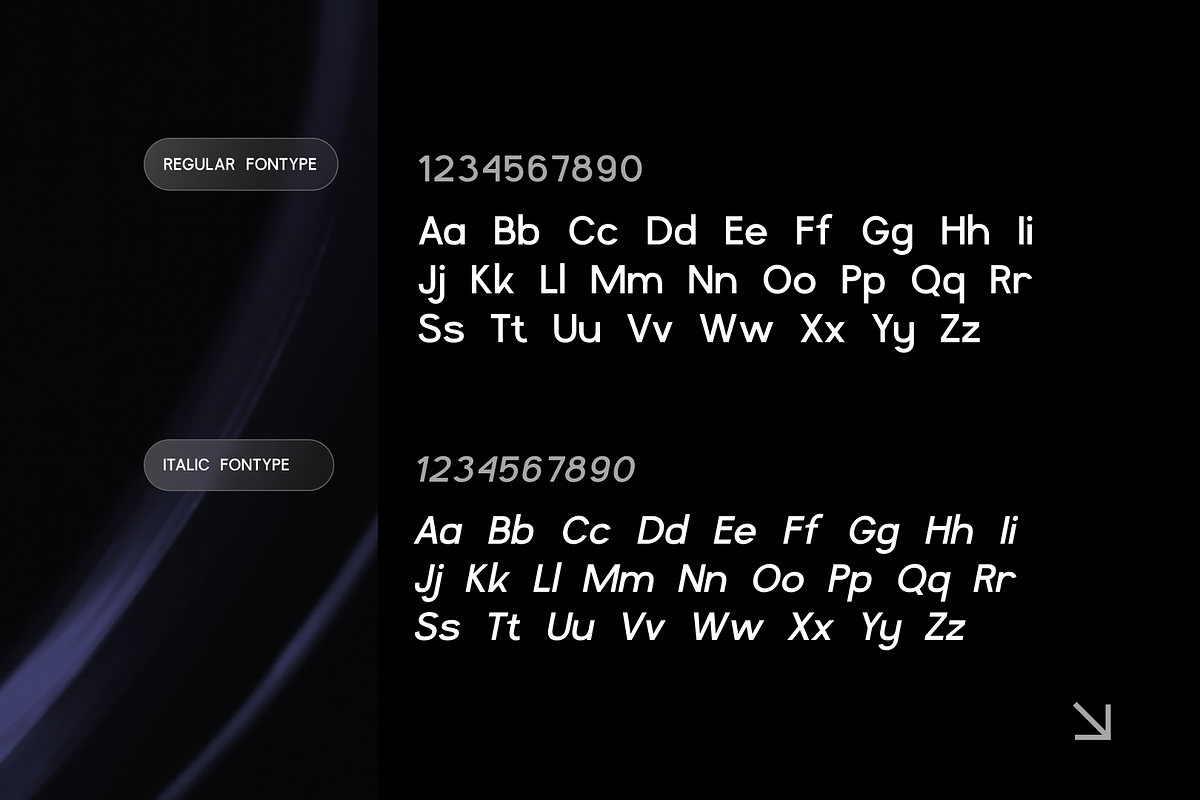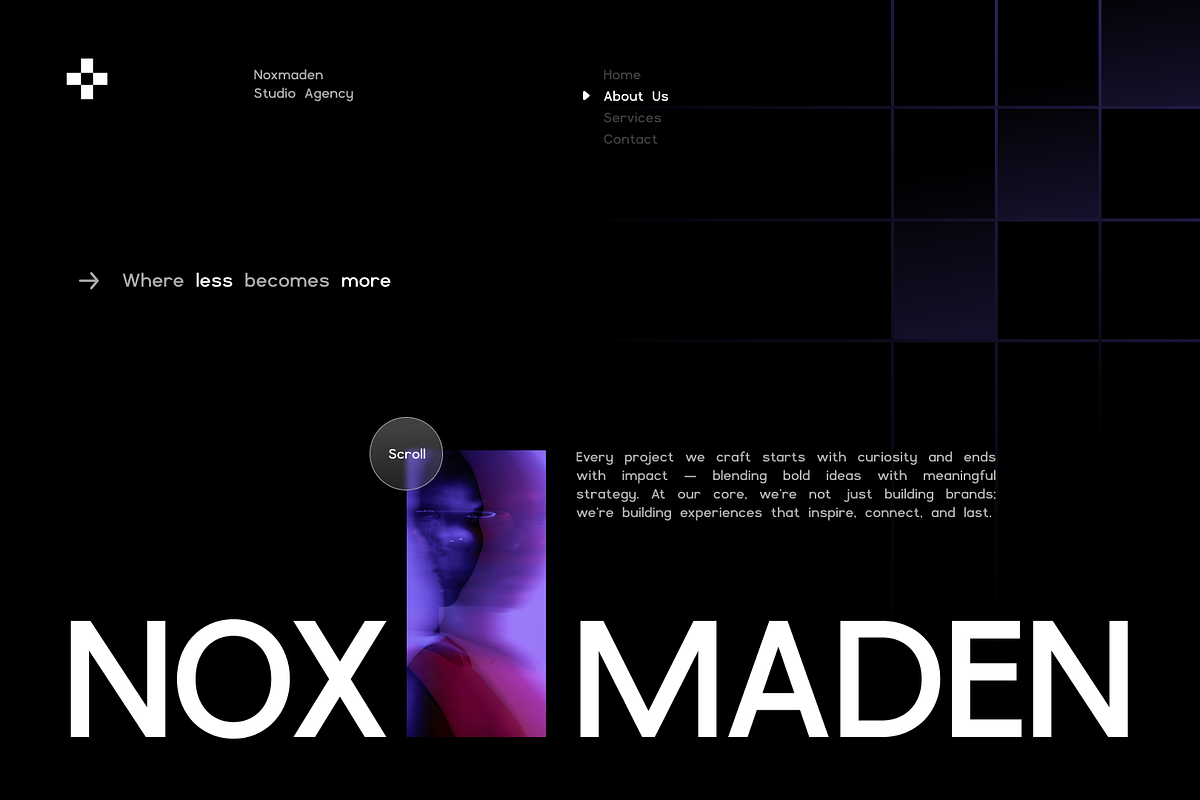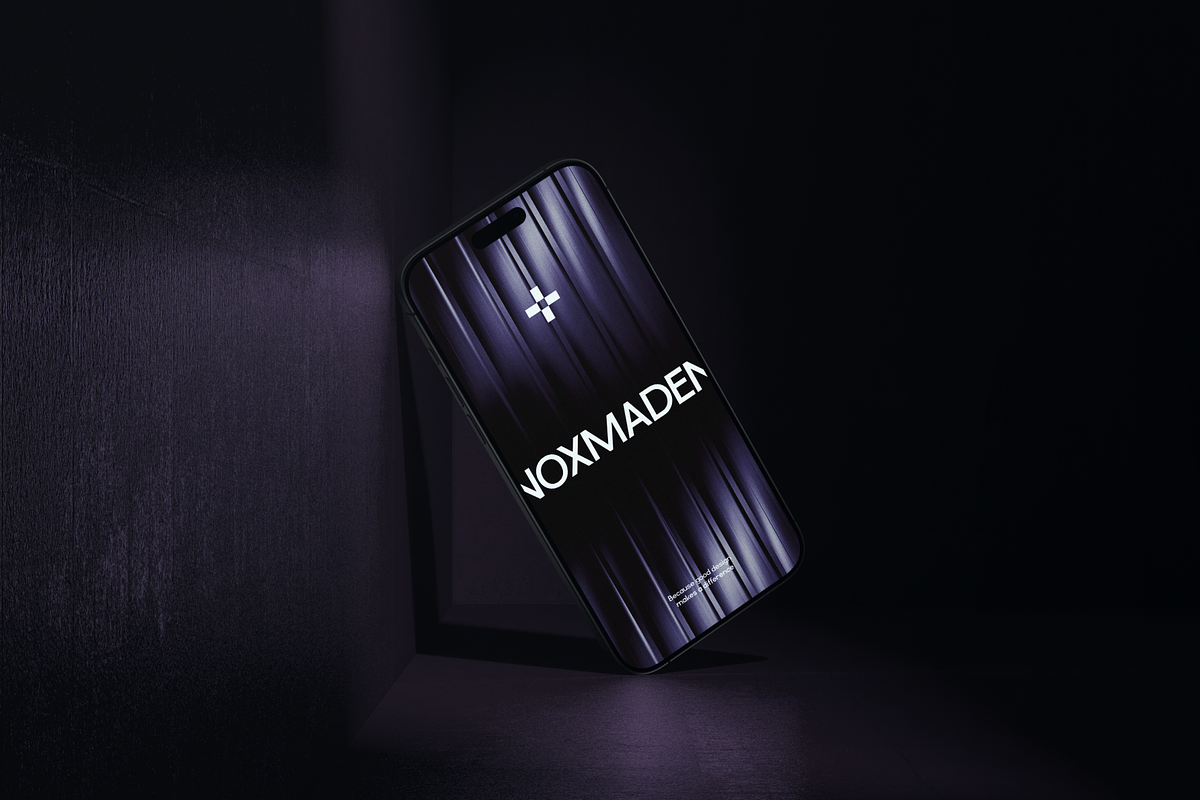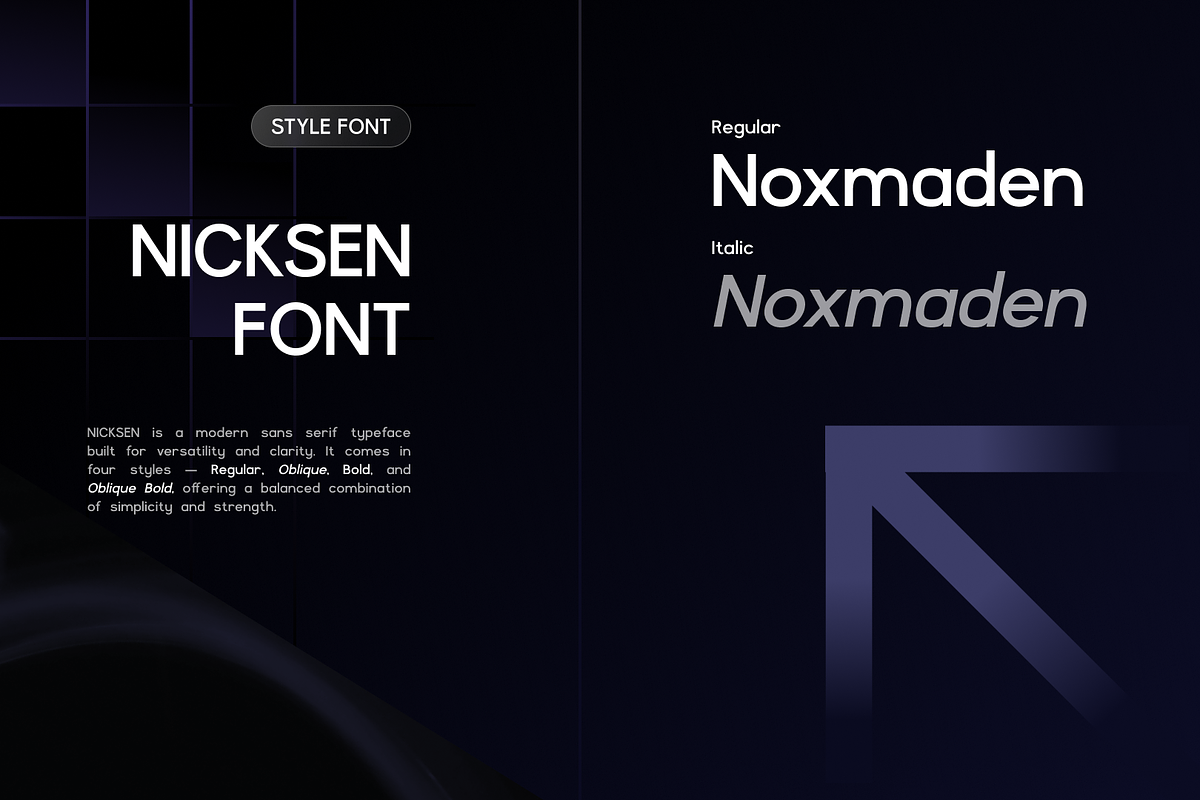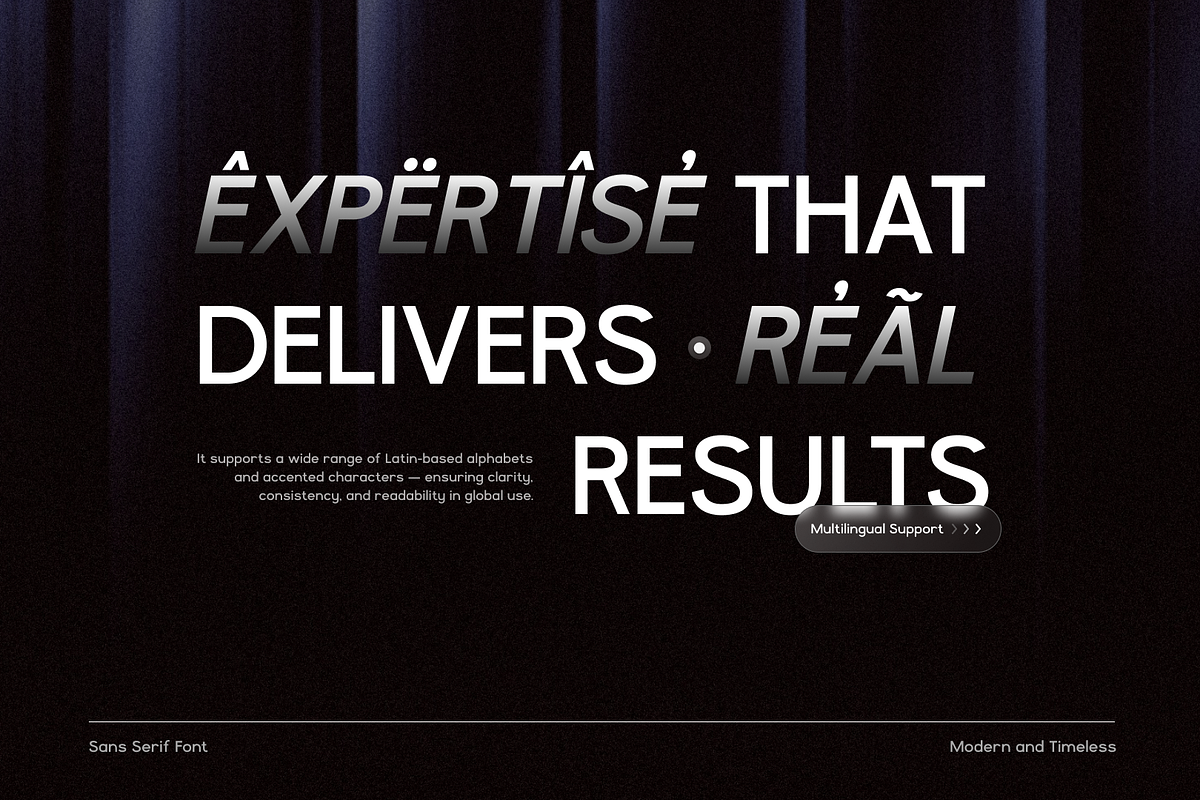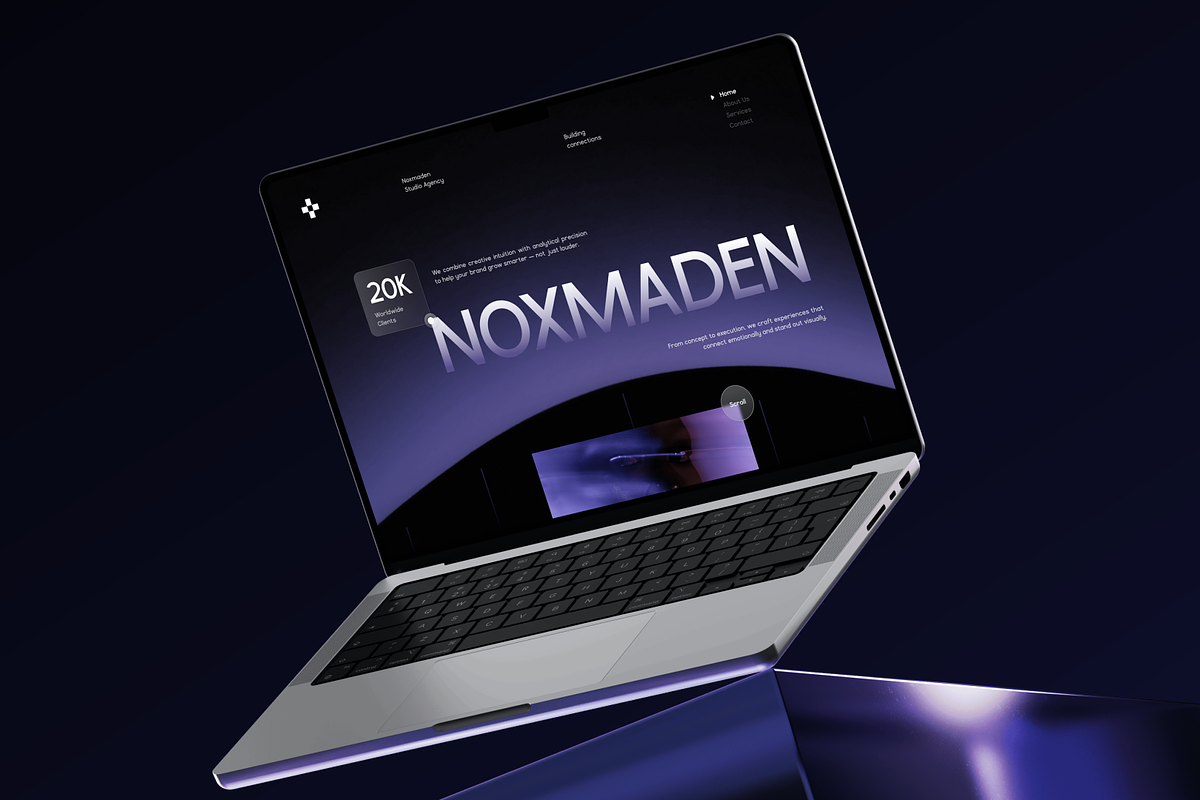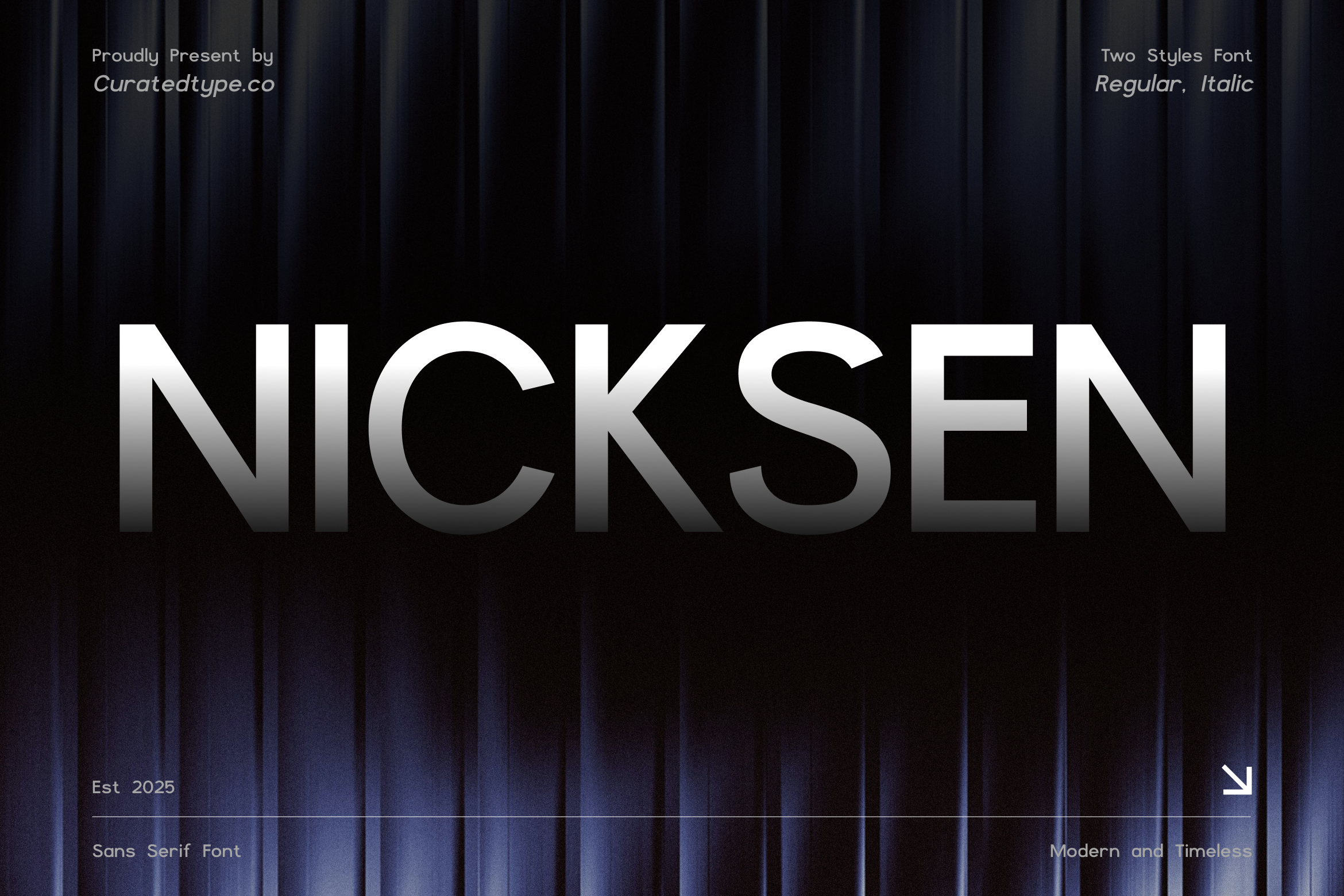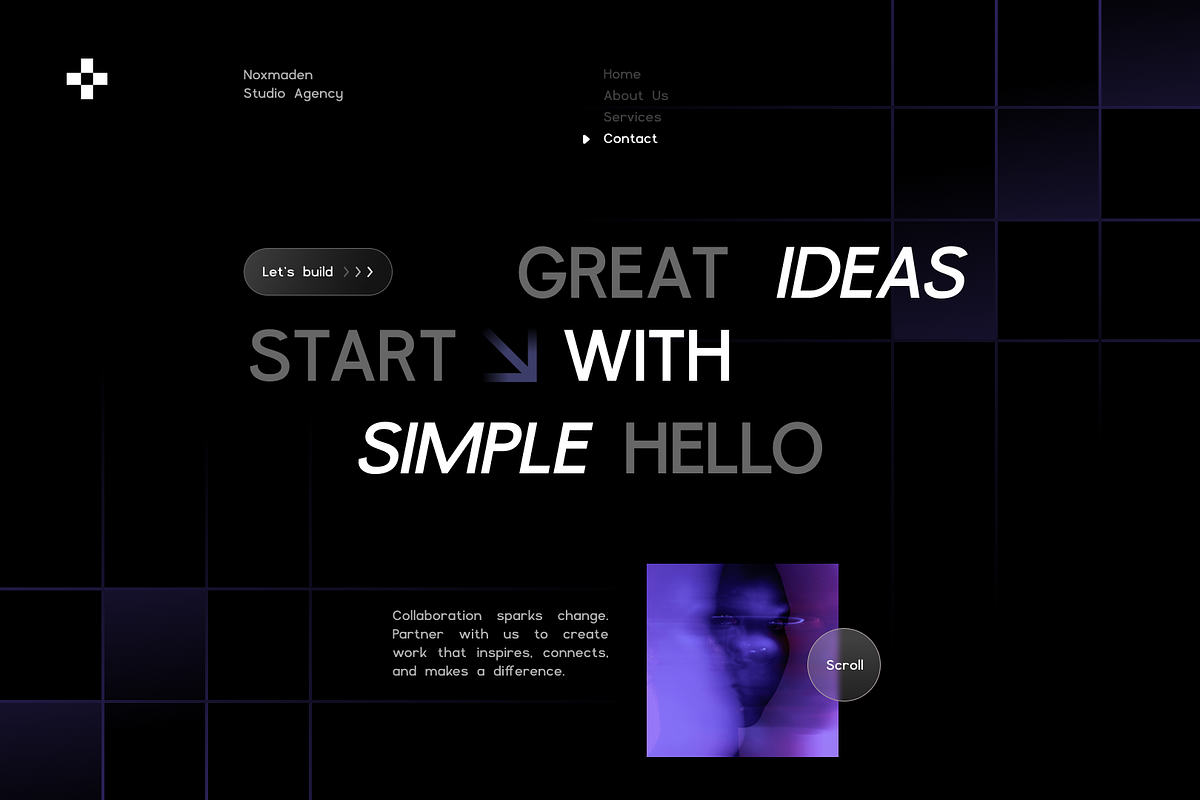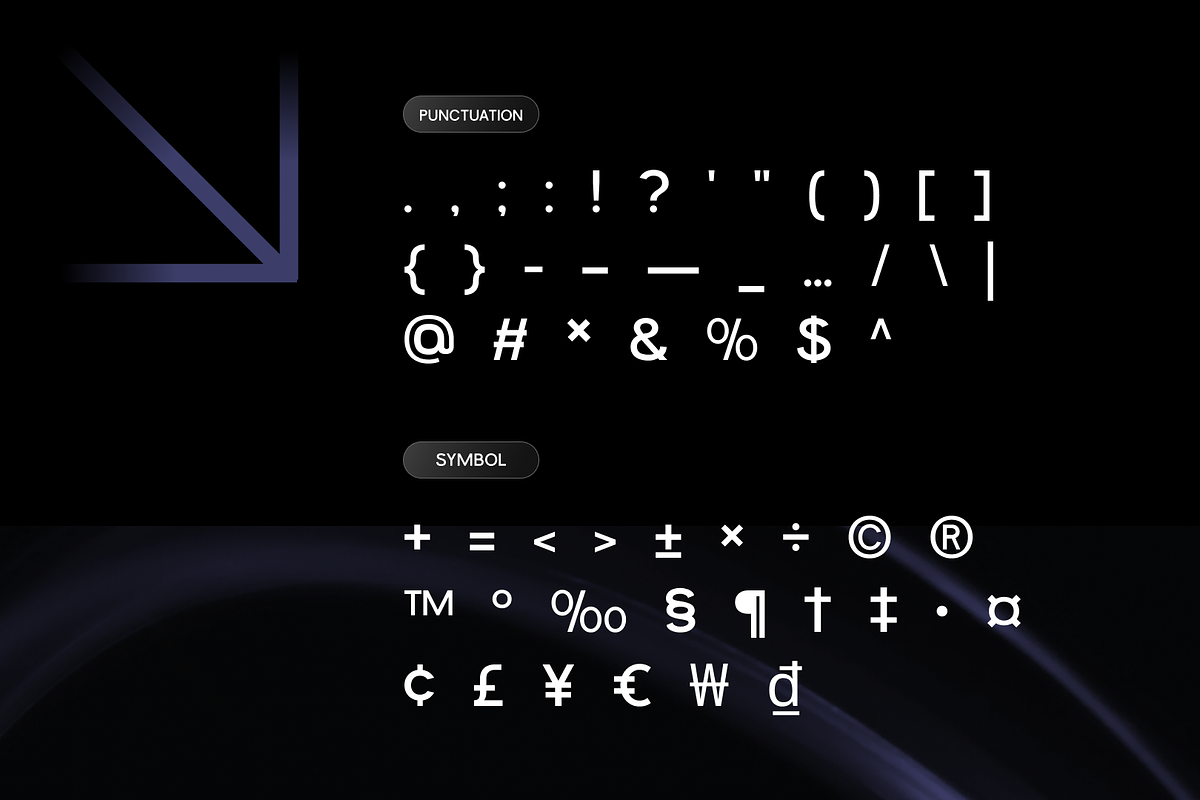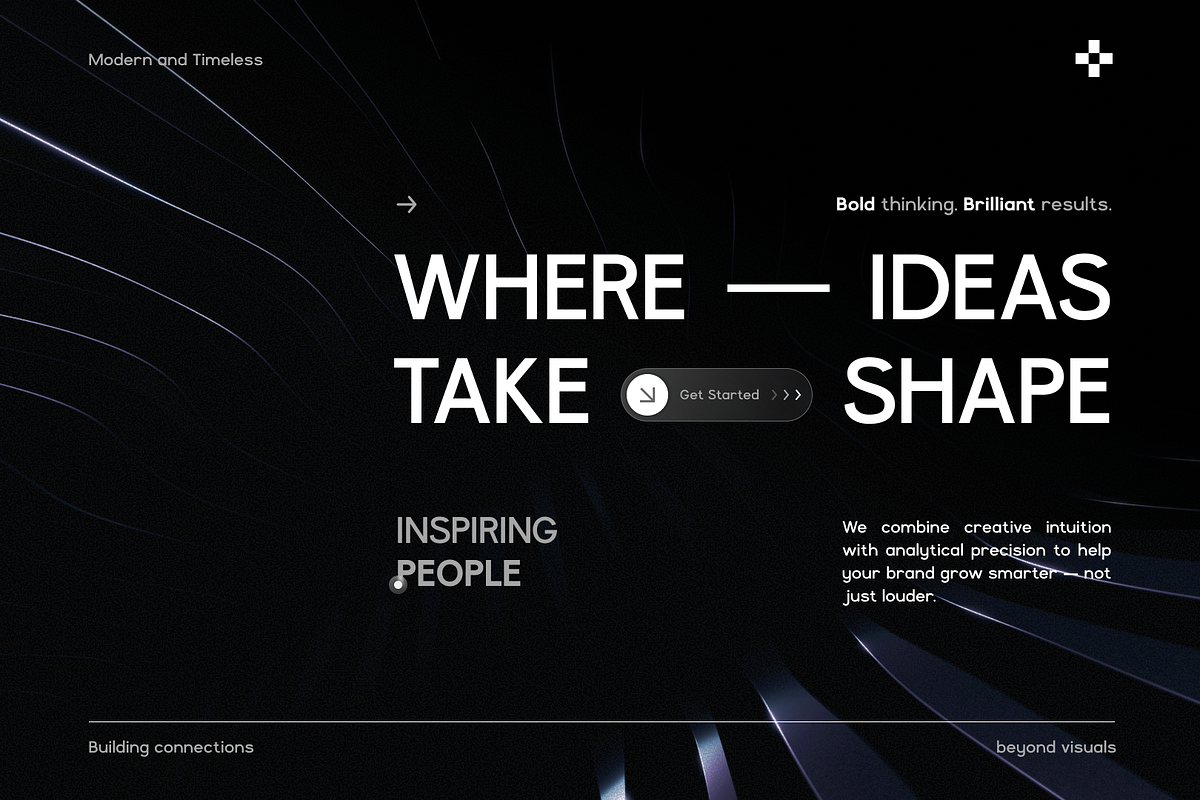
Nicksen - Modern Sans Font
Nicksen is a contemporary sans serif that balances clean lines with subtle curves, delivering clarity and precision at any size. Its open counters and uniform stroke weight ensure legibility across print and screen. Featuring a comprehensive set of uppercase and lowercase letters, numerals, and symbols, Nicksen streamlines typographic workflows with its versatility and professional appearance.
- 2 Styles Font : Regular, Italic
- Standard letter A-Z and a-z
- Numeral, Symbol, and Punctuations